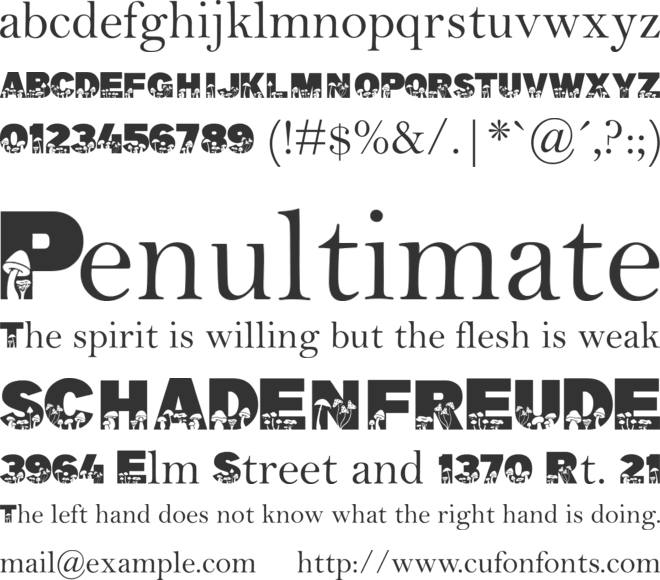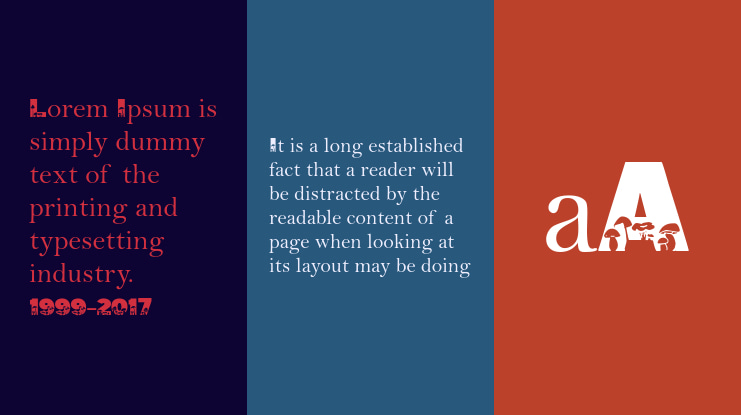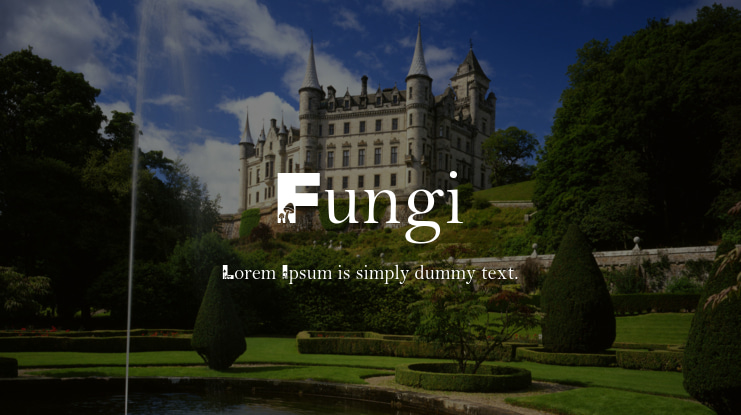
Fungi Font
Description: Fungi come in many forms from mycorrhizal fungi, endomycorrhiza, ectomycorrhiza, trichoderma, mycorrhiza to table mushrooms. Show your love of all things fungi by using this free fungi font.
FreeLancer Farooque @ Fiverr